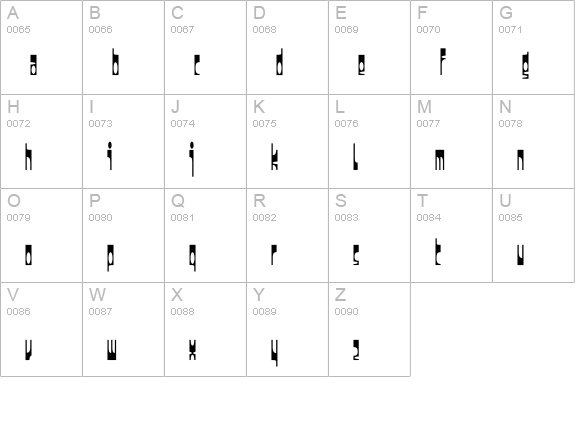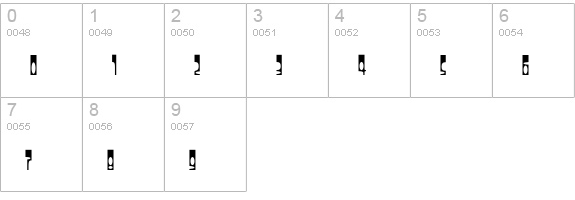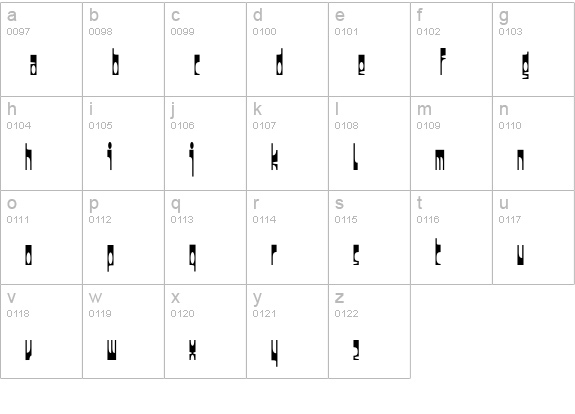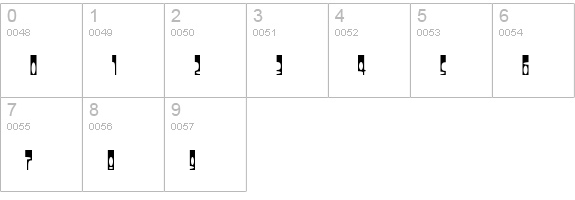
Darkside Font Details
Darkside font is a striking and edgy typeface that exudes a mysterious and captivating aura. Its bold and intricate design makes it perfect for projects that require a touch of darkness and intrigue. The sharp angles and unique letterforms of Darkside font create a sense of drama and sophistication, making it a standout choice for posters, logos, and branding materials. What sets Darkside font apart is not only its distinctive look, but also the fact that it is available for free download at FontsMarket.com. This means that you can easily access this eye-catching font and incorporate it into your designs without any cost. Whether you're looking to add a touch of edge to your graphic projects or create a visually stunning piece of art, Darkside font is sure to make a bold statement.